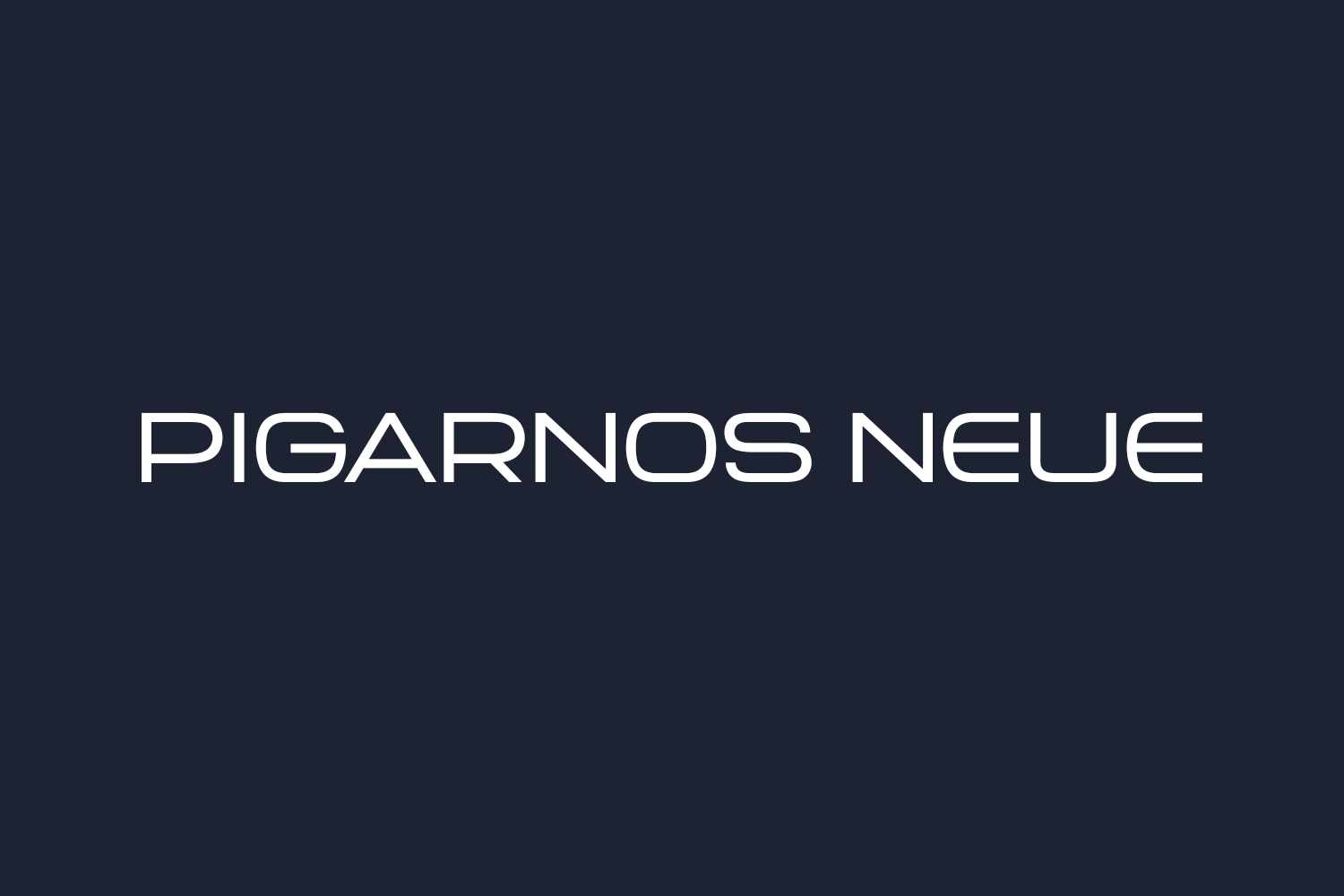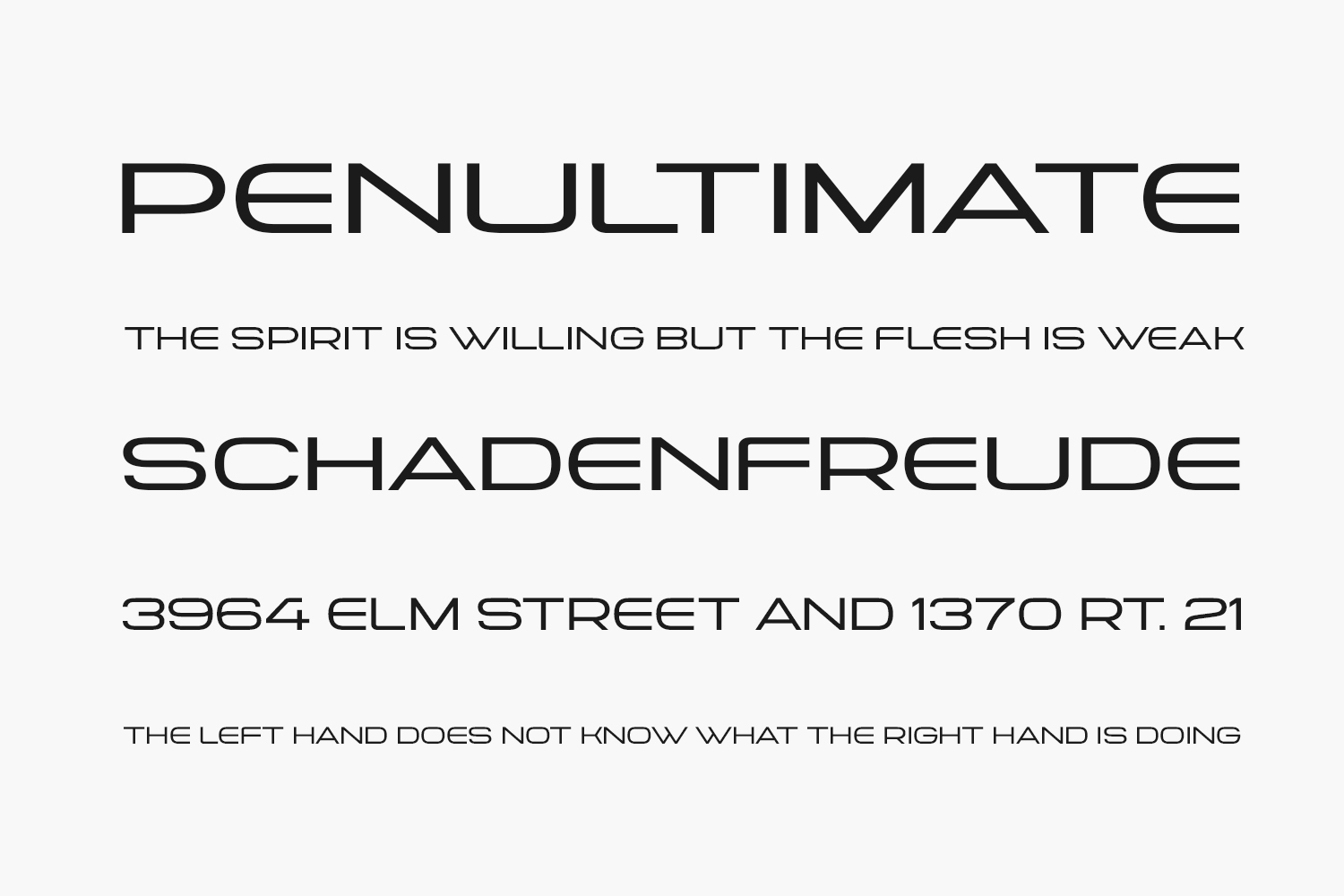
Pigarnos Neue Free Font boasts a stylish and contemporary display font that’s perfect for a wide range of creative projects demanding a futuristic and playful vibe. Your only boundary is your own imagination. Pigarnos Neue Free Font is free for personal use only. Please purchase the full version for commercial use.
Designed by Mo Ya